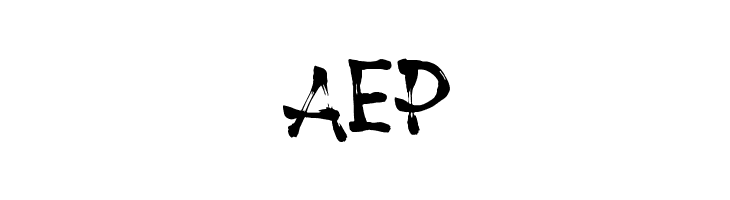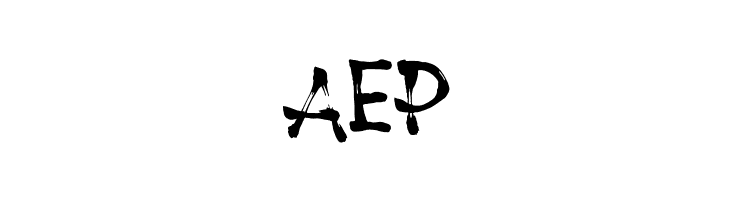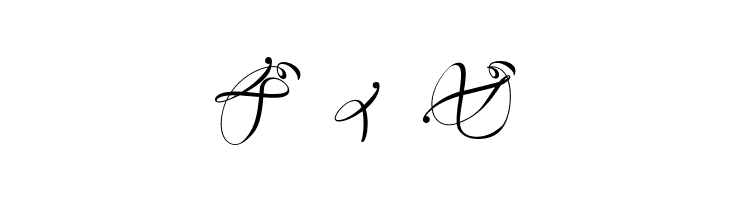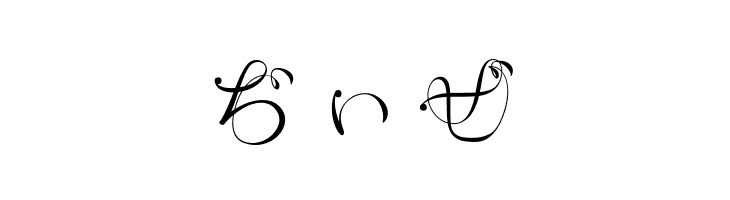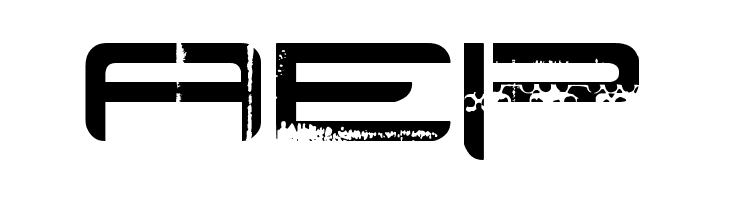
A decorative and whimsical font with swirling, interconnected strokes and playful loops.
A modern, distressed font with a futuristic, stencil-like design.
A bold, playful font with a halftone pattern and a retro comic book feel.
A bold, geometric font with sharp angles and cut-out sections for a modern look.
A bold, brush-style font with dynamic and expressive strokes.
A bold, brush-stroke style font with dynamic and artistic flair.